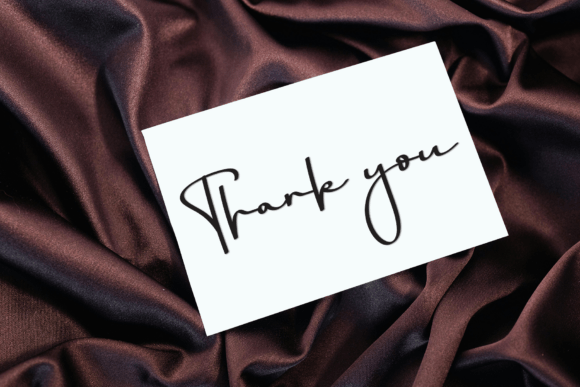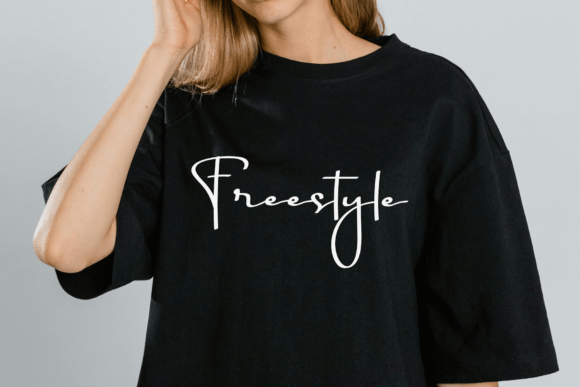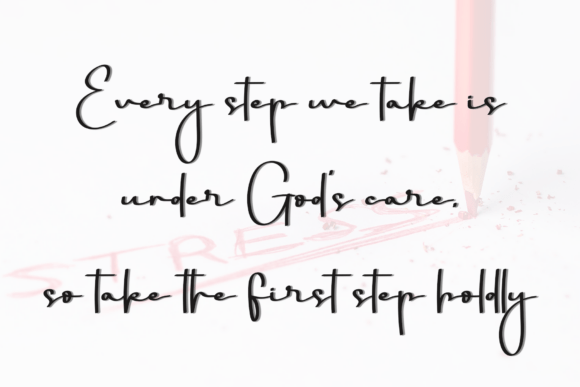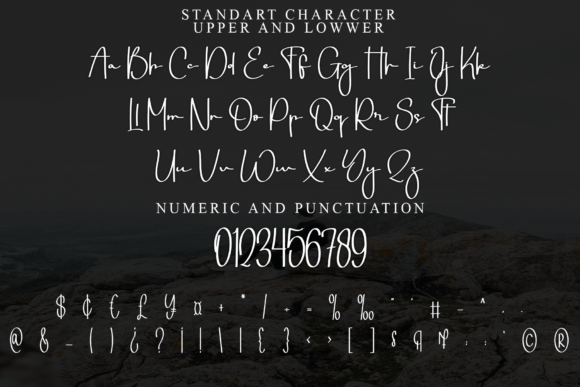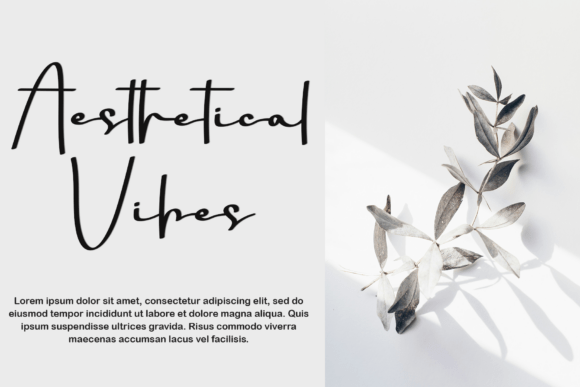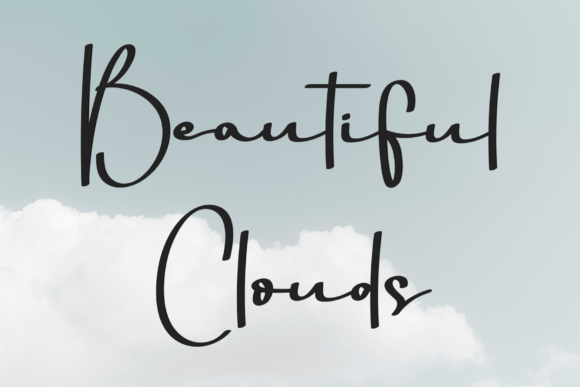
Introducing Everyday Font: A Festive and Merry Typeface for Your Holiday Designs
Are you looking for a font that captures the spirit of the holiday season? Do you want to add a touch of enchantment to your designs and make them stand out? Look no further than Everyday Font, a decorative and whimsical typeface that’s perfect for greeting cards, gift tags, and holiday-themed projects.
The Magic of Everyday Font
Everyday Font is a beautifully crafted typeface that’s designed to bring a cheerful and nostalgic ambiance to your words. With its decorative elements and whimsical flair, it’s the perfect choice for designers and crafters who want to add a little extra magic to their projects. Whether you’re creating holiday cards, gift tags, or festive banners, Everyday Font is sure to make your designs shine.
Key Features of Everyday Font
- Decorative Elements: Everyday Font features a range of decorative elements, including swashes, flourishes, and ligatures, that add a touch of elegance and sophistication to your designs.
- Whimsical Flair: With its playful and whimsical design, Everyday Font is perfect for creating festive and fun holiday projects.
Everyday Font is the perfect choice for a wide range of holiday projects, including:
- Greeting Cards: Create beautiful and festive holiday cards that will delight your friends and family.
- Gift Tags: Add a personal touch to your gifts with custom gift tags featuring Everyday Font.
- Holiday Banners: Create eye-catching holiday banners that will add a touch of festive cheer to any room.
- Social Media Graphics: Use Everyday Font to create festive and engaging social media graphics that will help you stand out.
Why Choose Everyday Font?
There are many reasons why Everyday Font is the perfect choice for your holiday designs. Here are just a few:
- Unique and Festive Design: Everyday Font features a unique and festive design that’s sure to stand out.
- High-Quality Typography: This font is designed to provide high-quality typography that’s clear and easy to read.
Tips for Using Everyday Font
Here are a few tips for using Everyday Font in your holiday designs:
- Experiment with Different Sizes: Try using Everyday Font in different sizes to add visual interest to your designs.
- Combine with Other Fonts: Combine Everyday Font with other fonts to create a unique and eye-catching design.
- Use Decorative Elements: Take advantage of the decorative elements and ligatures in Everyday Font to add a touch of elegance and sophistication to your designs.